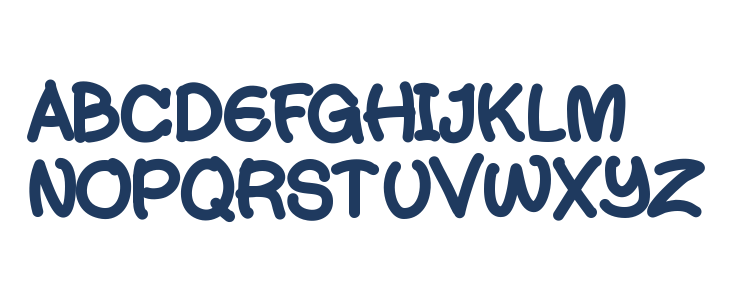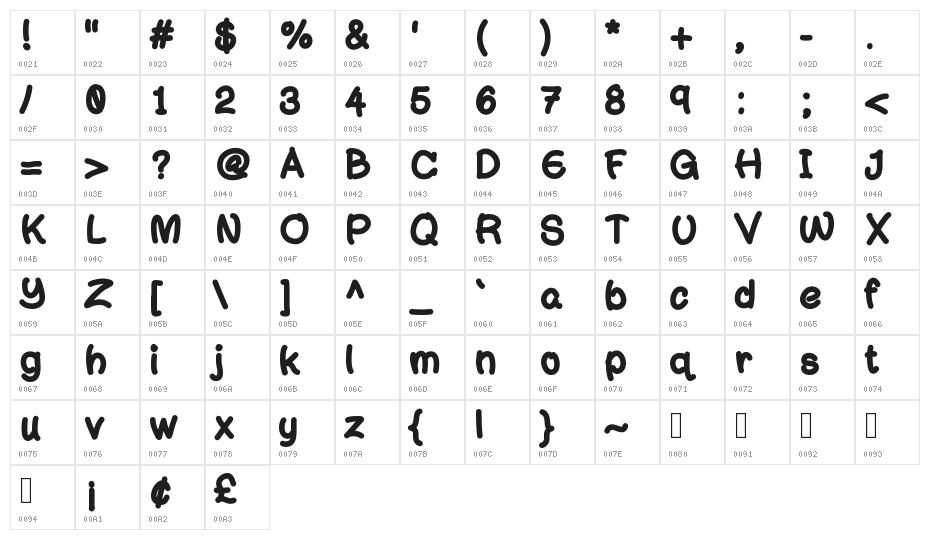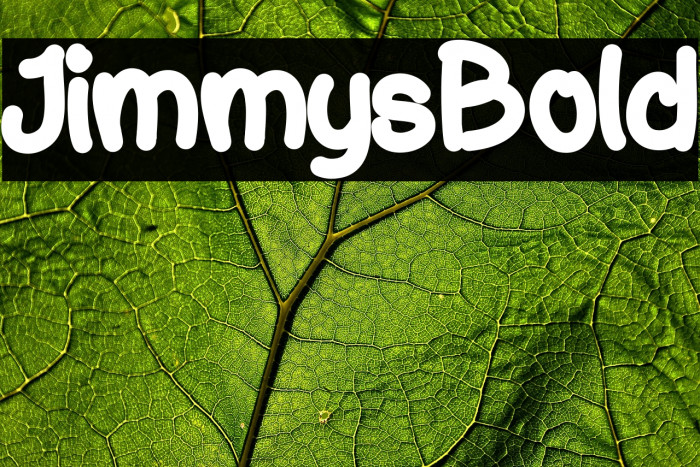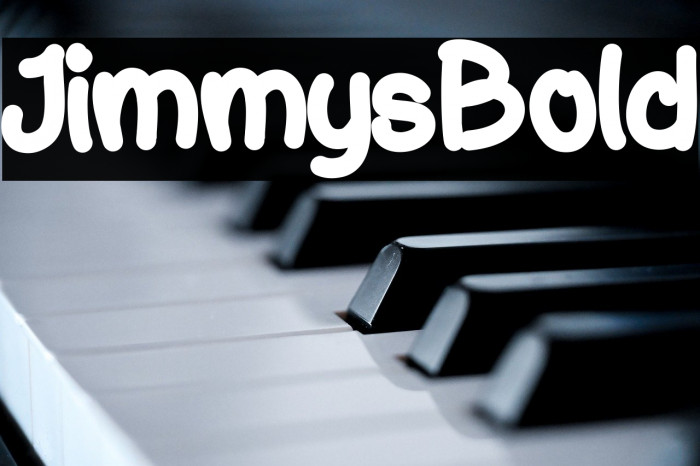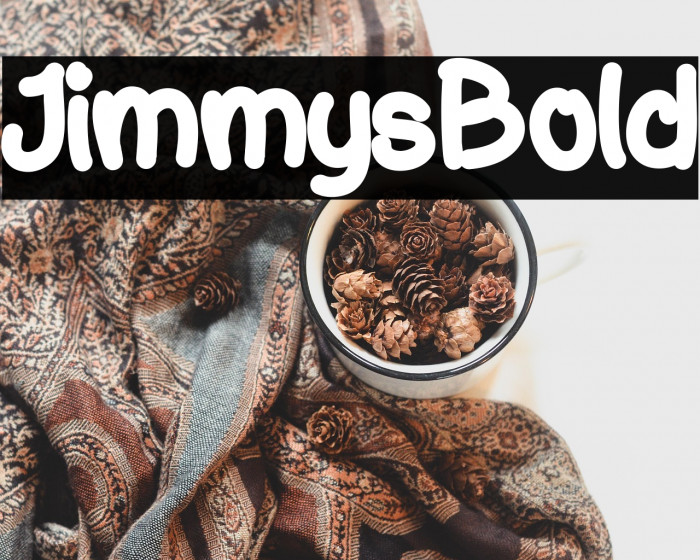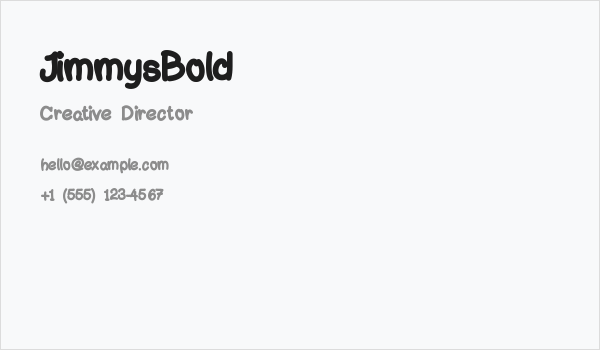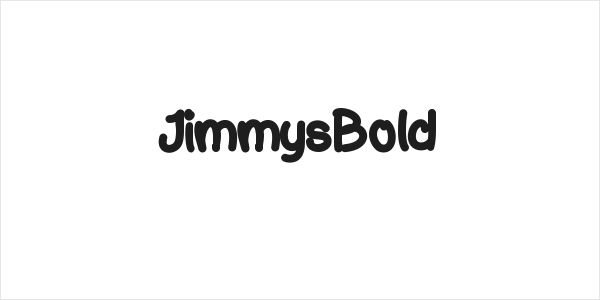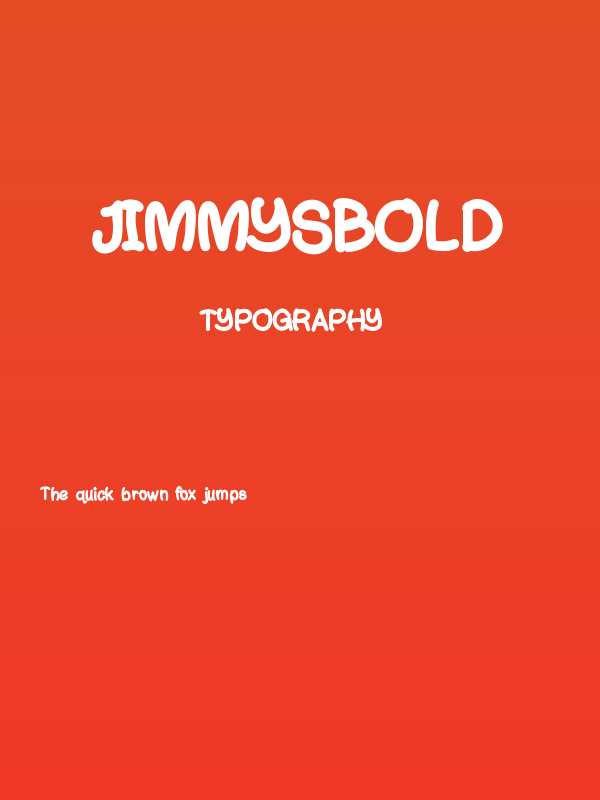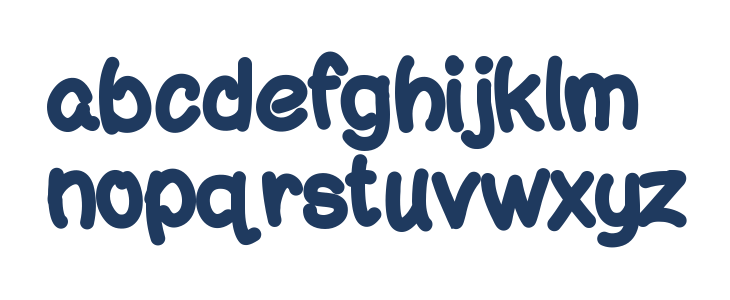
JimmysBold Font
JimmysBold Description
A playful, rounded, and bold sans-serif font with thick strokes and a hand-drawn, cartoonish appearance. The characters are wide and have a soft, friendly feel, with consistent stroke weight and generous spacing.
| Overall Style | Playful, Decorative, Handwritten |
| Use Case | Headlines, Posters, Logos, ChildrenΓ’β¬β’s materials |
| Proposed Projects | ChildrenΓ’β¬β’s books, comic titles, posters, playful branding, party invitations. |